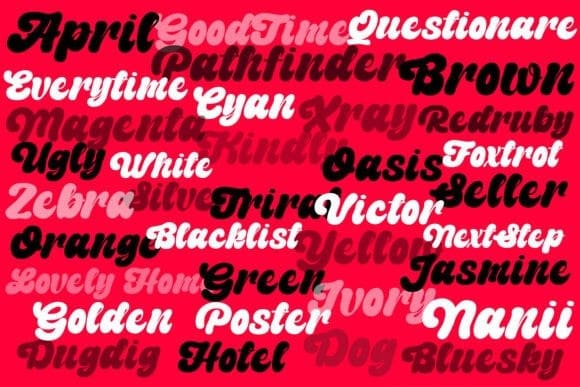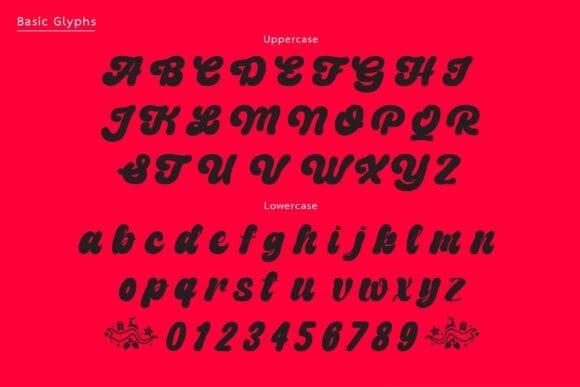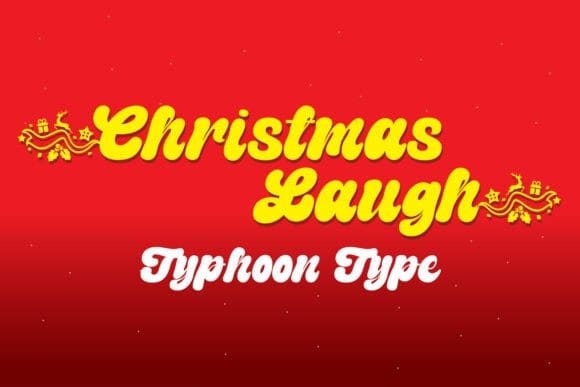
Christmas Laugh Font
Christmas Laugh Font is a fun and lively font inspired by retro design, with characters resembling round, balloon-like shapes that add a playful touch, perfectly capturing the festive spirit of Christmas. The font’s overall look is bold and bubbly, with a slight slant that creates a sense of movement and energy.